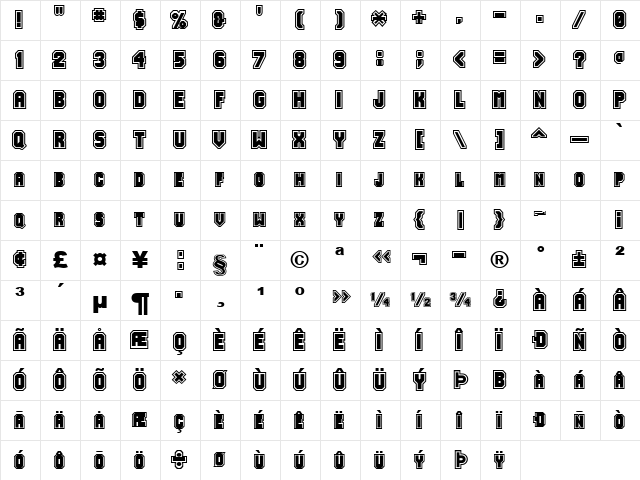
Jersey Normal
Jersey Family
Complete Jersey Normal glyph index. Displaying only characters natively supported by Jersey Normal font.
Design Context for Jersey
Jersey brings high-energy athletic personality to the page - its confident, muscular forms are built for impact.
Pro Tip: Use Jersey in all-caps headlines where its athletic energy can fully express itself. Pair with a solid, simple sans for supporting text.